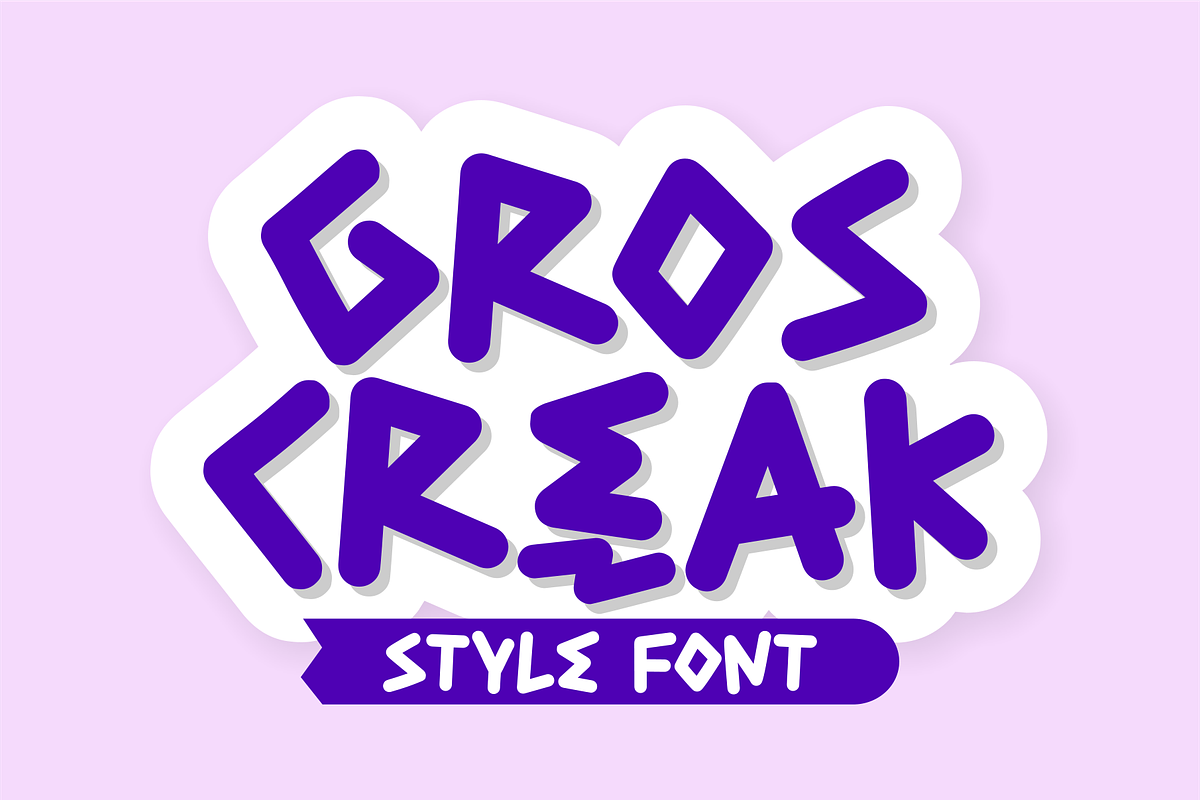
The Gros Creak Font Free Download is a unique and striking typeface that combines bold, strong lines with a slightly vintage feel. Perfect for creating impactful headlines, logos, posters, and any project that needs a bold and distinctive presence. Please note, for commercial use, a license must be purchased. You can download it for free for testing purposes.
With its bold and unique design, the Gros Creak Font Free Download is ideal for making a strong impression in any creative project. Whether you're working on branding, promotional materials, or digital content, this font adds a touch of personality and strength to your designs.
Get the Gros Creak Font Free Download today and add a bold, modern edge to your designs with this versatile typeface.